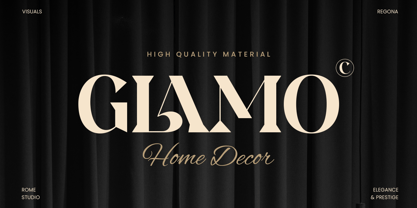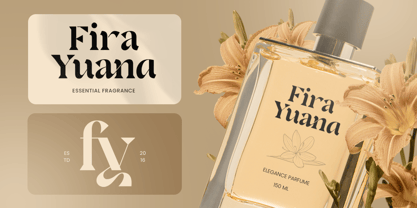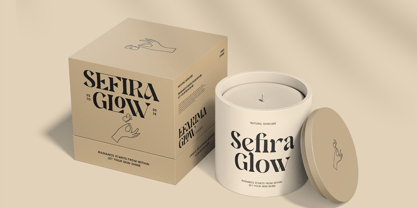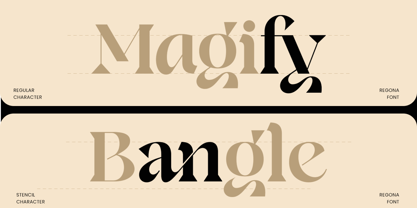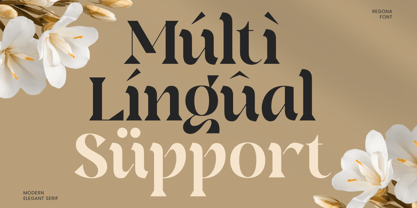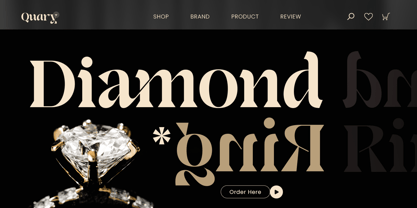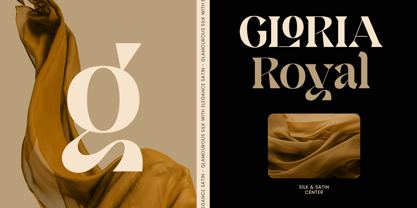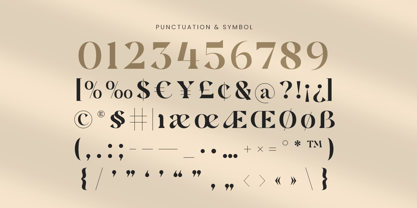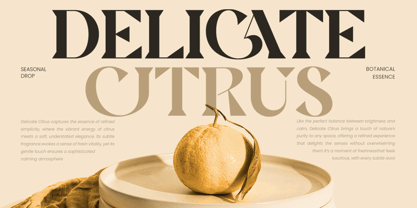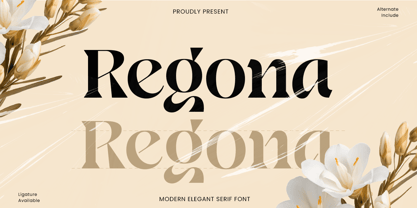
Regona
Regona is a modern elegant serif font designed to deliver refined sophistication with a clean contemporary edge. With graceful serif details, balanced proportions, and a polished rhythm, this typeface creates a premium visual tone that feels confident, timeless, and instantly brand-ready.
Built for high-end typography, Regona works beautifully across logos, wordmarks, brand identity systems, editorials, magazine headlines, website headers, packaging, labels, invitations, signage, presentations, and modern marketing visuals. Its elegant structure keeps layouts crisp and readable while adding a luxurious, elevated mood across both digital and print designs.
Whether you’re crafting a fashion identity, building a beauty brand, designing premium packaging, or creating an upscale editorial concept, Regona provides a modern serif foundation that makes your typography feel sophisticated, professional, and unforgettable.
Inspiration Behind Regona
Regona is inspired by contemporary luxury branding and modern editorial typography—where clarity, refinement, and elegant structure shape premium communication. The design focuses on clean serif presence and balanced rhythm to support stylish identities and elevated layouts with timeless appeal.
Regona Font Features:
• Modern elegant serif letterforms with refined premium character
• Perfect for luxury branding, logos, and editorial headline typography
• Clean structure for stylish layouts and strong readability
• It's coming with regular and stencil style inside the files
• Uppercase, lowercase, numerals, and punctuation included
• OpenType features for polished professional typesetting
Multilingual Support
Afrikaans, Albanian, Asu, Basque, Bemba, Bena, Breton, Chiga, Cornish, Dutch, English, Estonian, Filipino, Finnish, Friulian, Galician, German, Gusii, Indonesian, Irish, Italian, Kabuverdianu, Kalenjin, Kinyarwanda, Luo, Luxembourgish, Luyia, Machame, Makhuwa-Meetto, Makonde, Malagasy, Manx, Morisyen, North Ndebele, Nyankole, Oromo, Portuguese, Quechua, Romansh, Rombo, Rundi, Rwa, Samburu, Sango, Sangu, Scottish Gaelic, Sena, Shambala, Shona, Soga, Somali, Spanish, Swahili, Swedish, Swiss, and more.